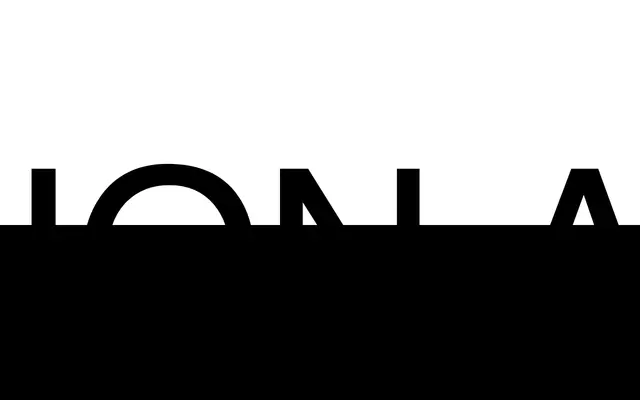
ION A
Setup Type · Ondrej Jób · 2010
A modular, LCD-inspired display typeface by Ondrej Jób, built on a 7-segment display matrix in 11 styles from Thin to an ultra-heavy U3.
Constructed on the grid of a classic 7-segment LCD display, ION A has no stroke contrast, a compressed width and a large x-height across ten weights plus a special Cells style containing filled and outlined containers for layered compositions. The family covers over 100 languages via Basic Latin and Extended Latin, with 435 glyphs including tabular lining figures, superscripts, subscripts and a slashed zero. It is the condensed member of the ION collection, sitting alongside the normal-width ION B and wide ION C.
ION A is explicitly LCD-inspired, built on a 7-segment display matrix with no stroke contrast and a compressed, modular construction. Its segmented, geometric structure places it firmly in the display/experimental category rather than any conventional sans or serif classification.